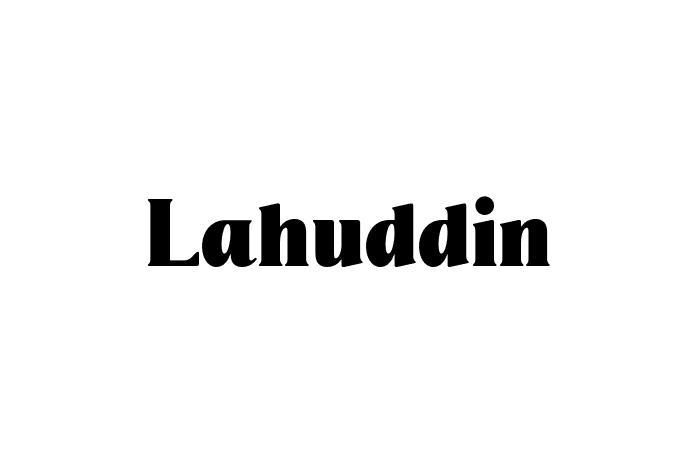
Bodidota Font
introduce Bodidota Font which comes in the serif font .epitomizes timeless elegance with its meticulous design and sophisticated aesthetic. it will be good for any designs, such as brand logo, business card, cover, custom design, feed design,  label, magazine, menu, poster, product packaging, quote, signage, web, and more.